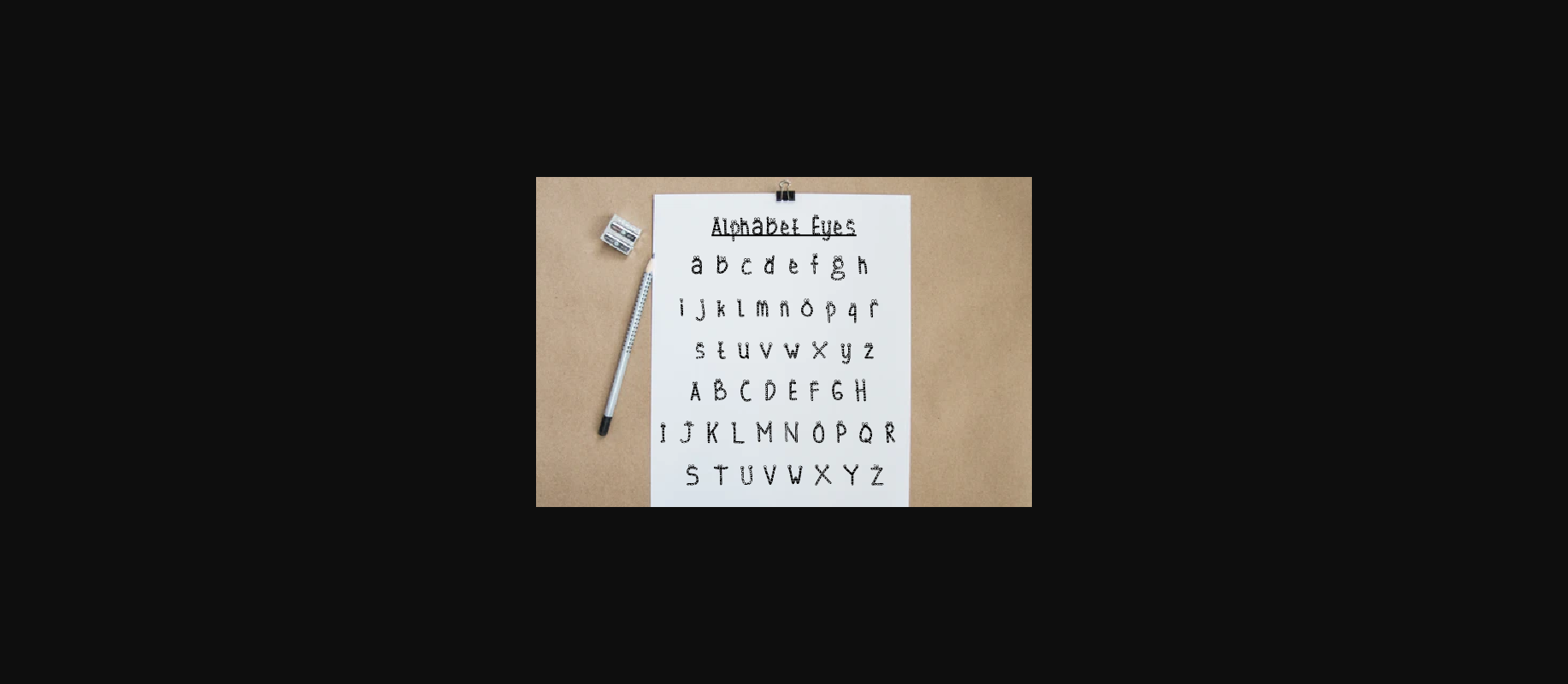
Alphabet Eyes Font
About Alphabet Eyes Font
Alphabet Eyes is a unique and interesting decorative font. Add this font to your favorite creative ideas and notice how it makes them come alive!